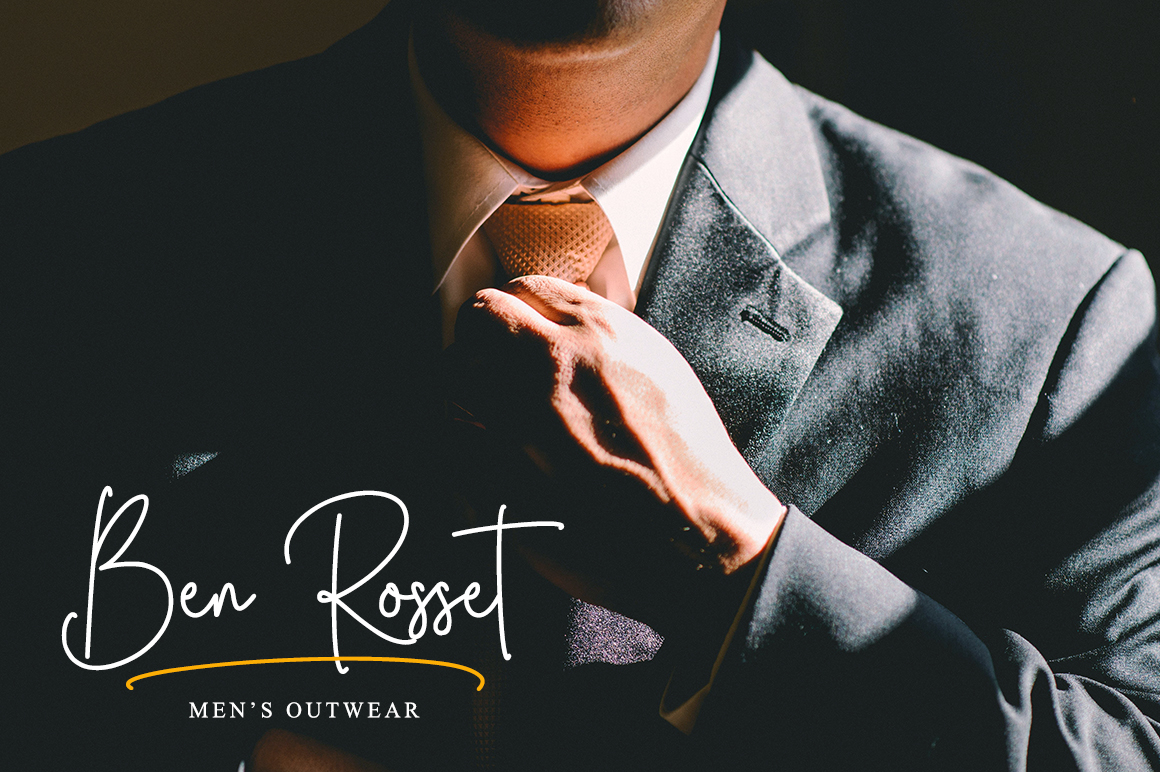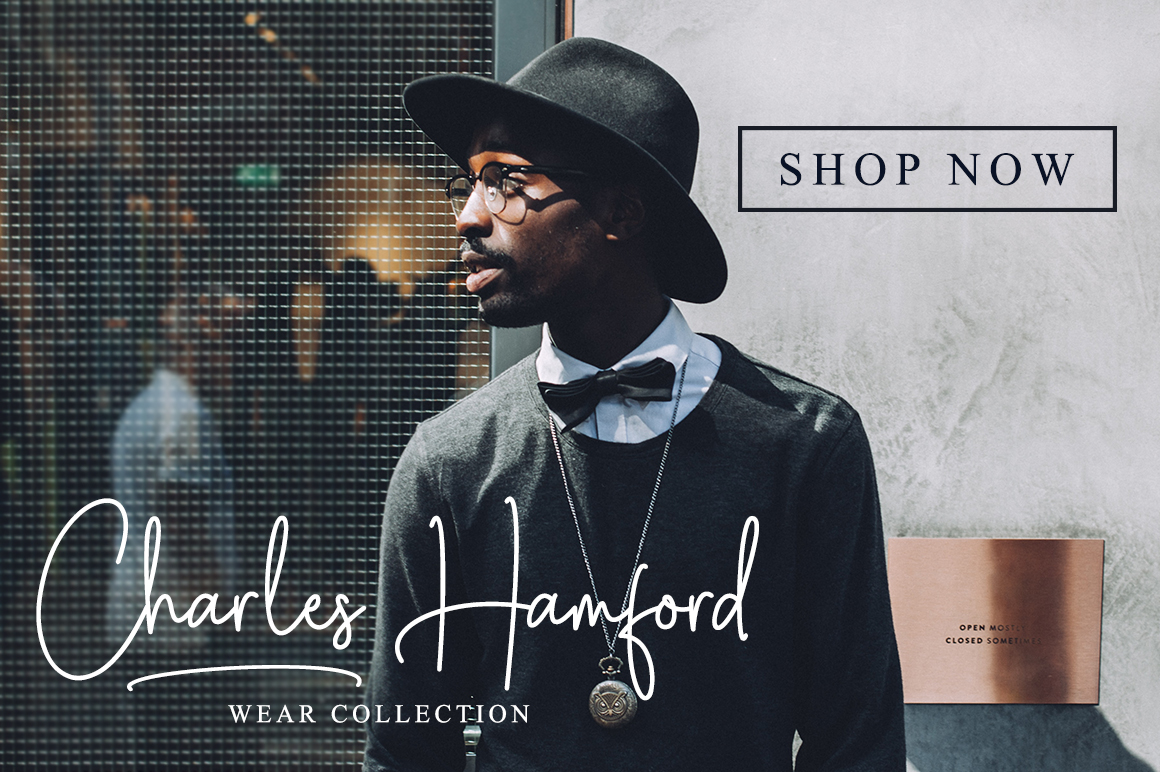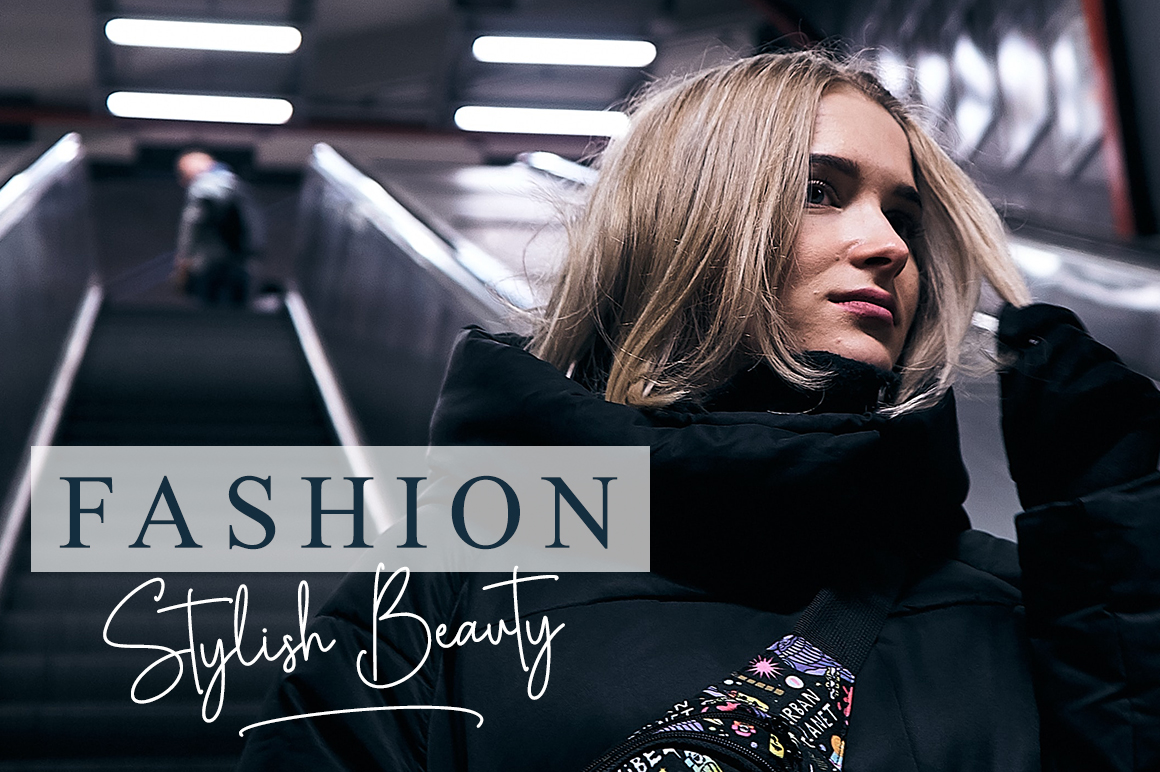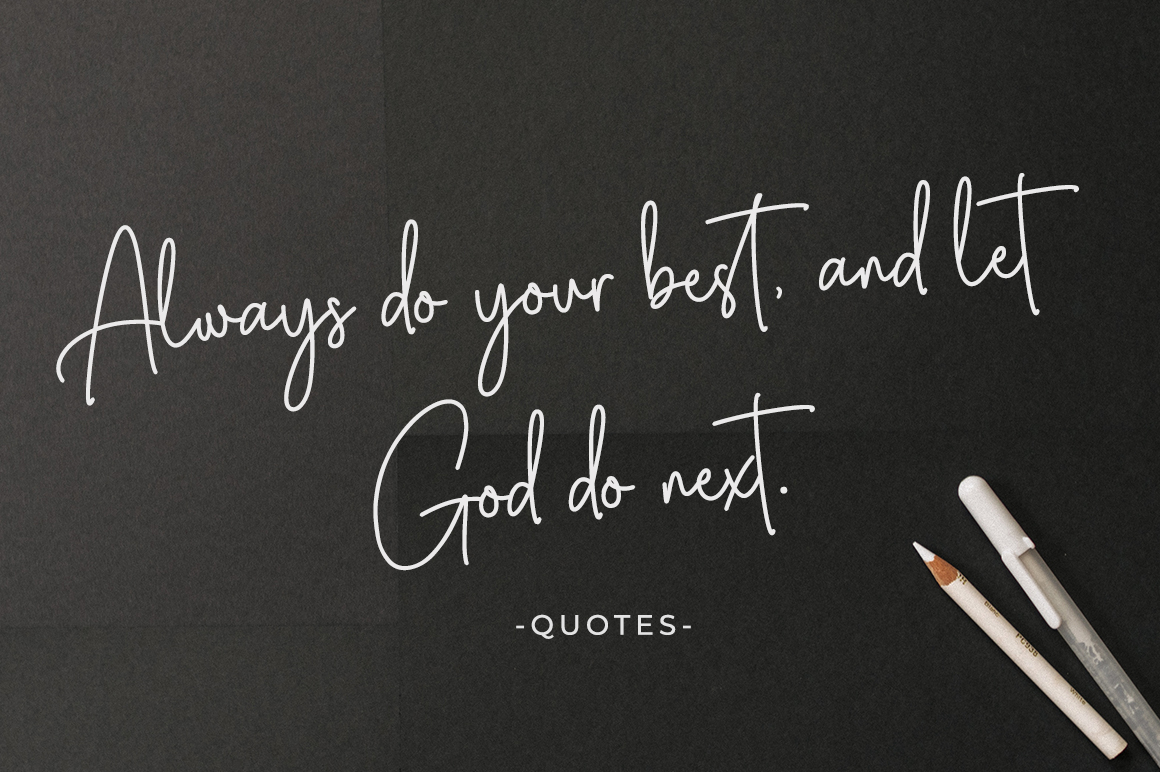
Buttervill Free Font
Buttervill Free Font is a stunning signature font with a cool twist. Get inspired by its modern simplicity. This free typeface was designed by a talented Bluestype Studio. If you like it don’t forget to check out the full version.